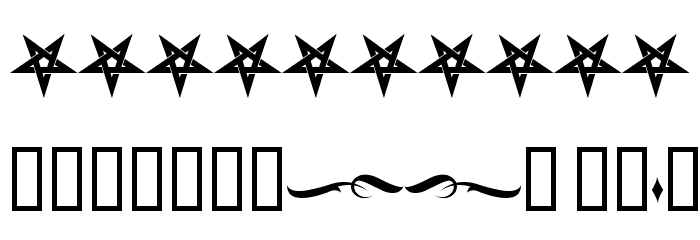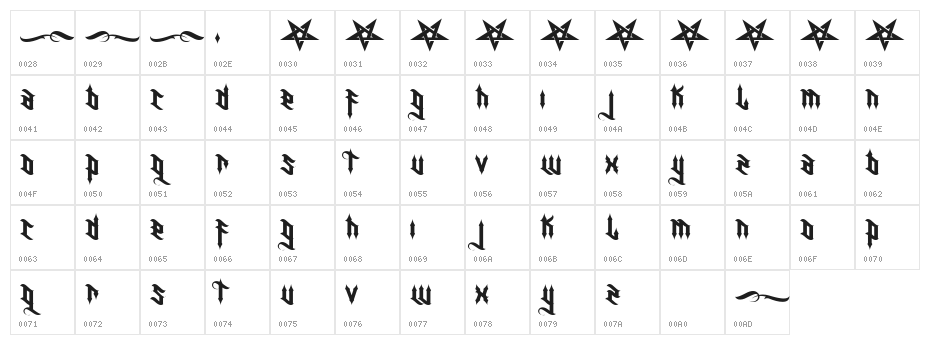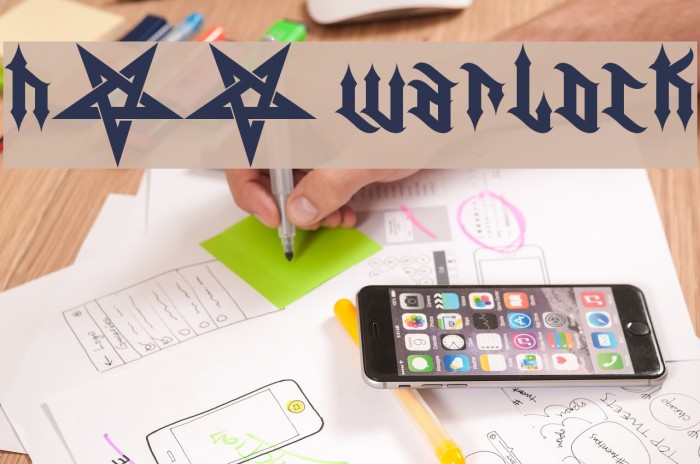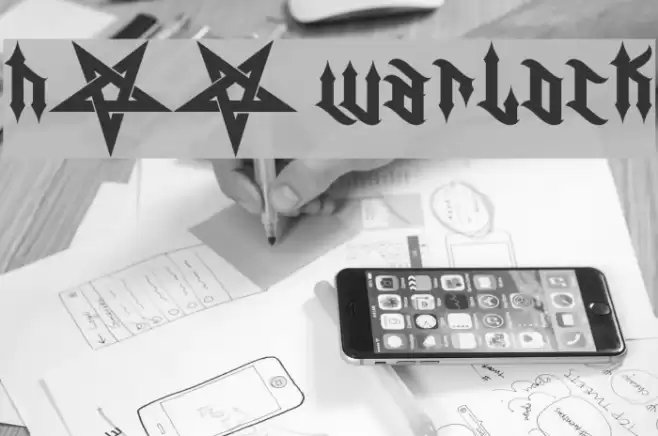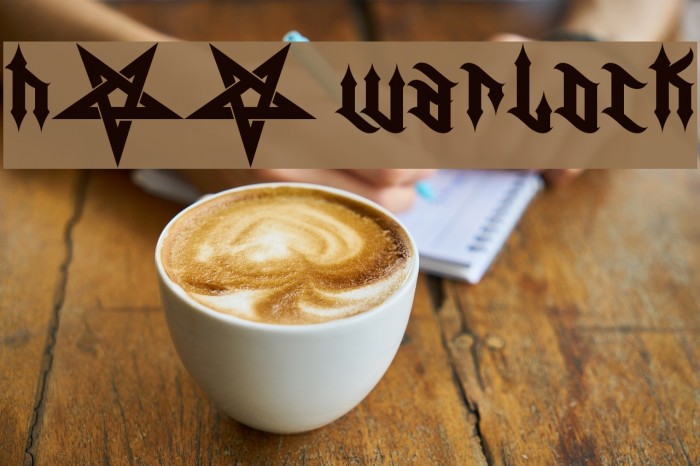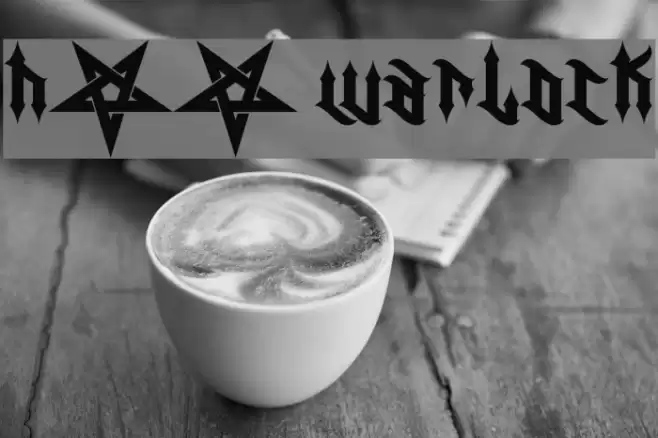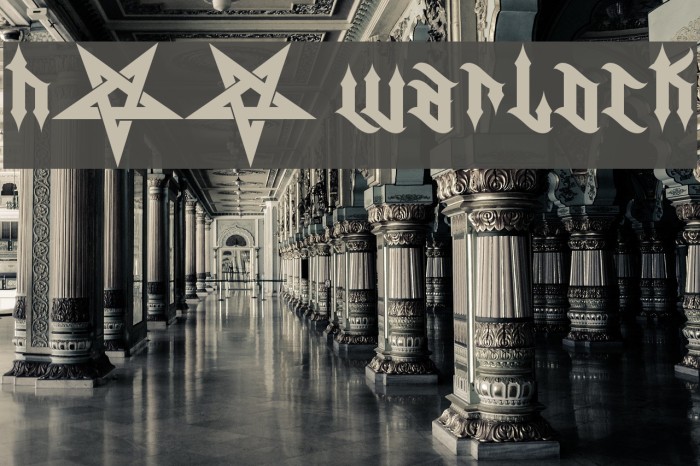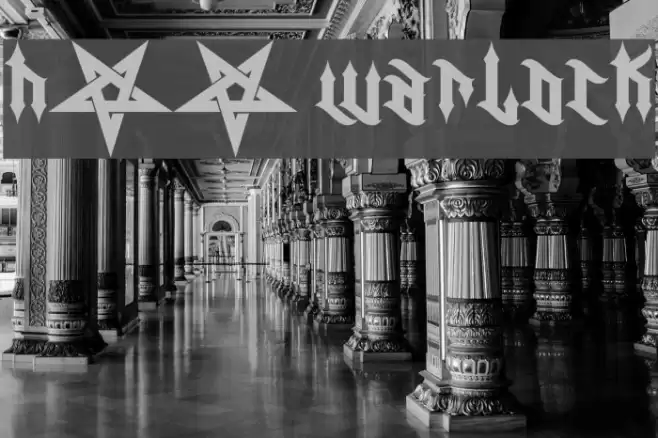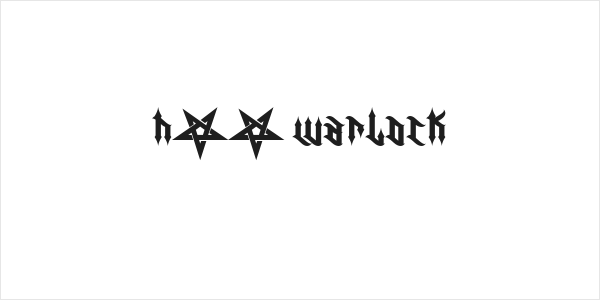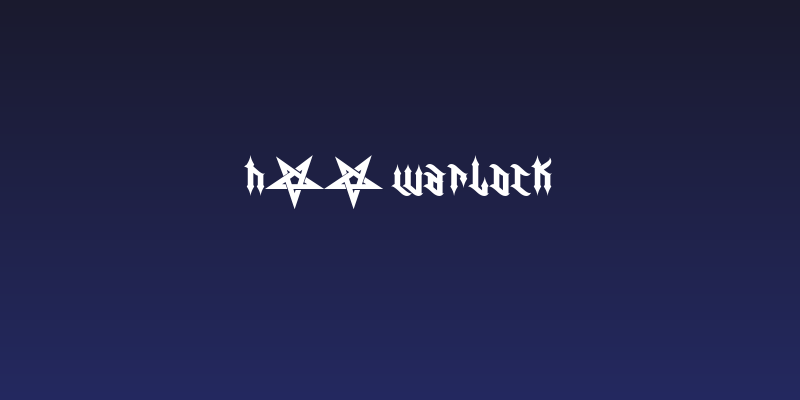
H74 Warlock Font
H74 Warlock Description
This font exhibits a bold and striking blackletter style, characterized by its sharp, angular lines and intricate detailing. The uppercase and lowercase letters maintain a consistent gothic aesthetic, with pointed serifs and dramatic flourishes that enhance its medieval appearance. The numerals and special characters are equally ornate, featuring unique embellishments that complement the overall design. The font's heavy weight and high contrast between thick and thin strokes contribute to its commanding presence, making it ideal for projects that require a touch of historical or mystical flair.
| Proposed Projects | Ideal for use in fantasy-themed designs, book covers, posters, and branding that require a medieval or mystical touch. |